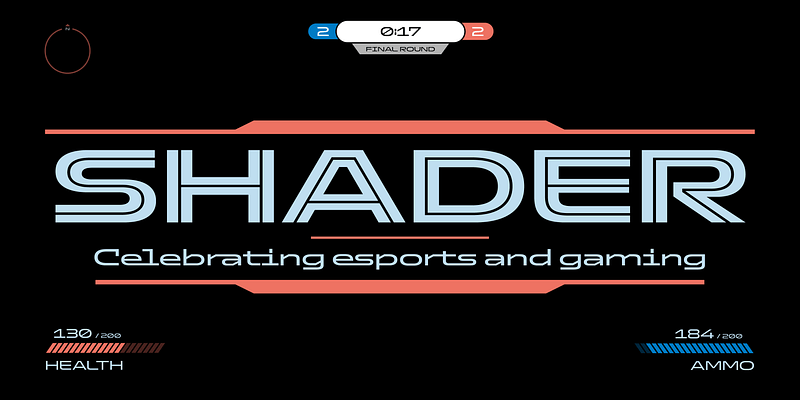
Shader Inline Font Free Download
Shader Inline Font Free Download is a bold and decorative display typeface that grabs attention with its unique inline style and vintage flair. Ideal for poster art, logos, product packaging, signage, and retro-themed projects, Shader Inline combines strong letterforms with a stylish shadowed effect that adds depth and dimension to your text.
What makes Shader Inline stand out is its visual impact—each letter is crafted to deliver a sense of movement and boldness while maintaining readability. Whether you’re designing for a music event, a craft label, or a throwback branding campaign, this font brings a dynamic energy that’s hard to miss.
Add Shader Inline to your creative toolkit for a fun, retro-inspired typeface that turns heads. It’s perfect for designers who want to make a statement with their typography. Download it today and bring bold style to your next project.